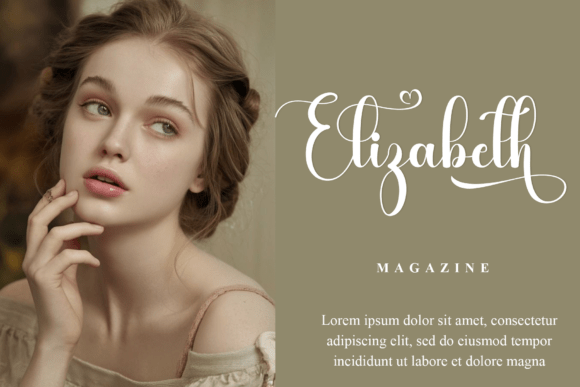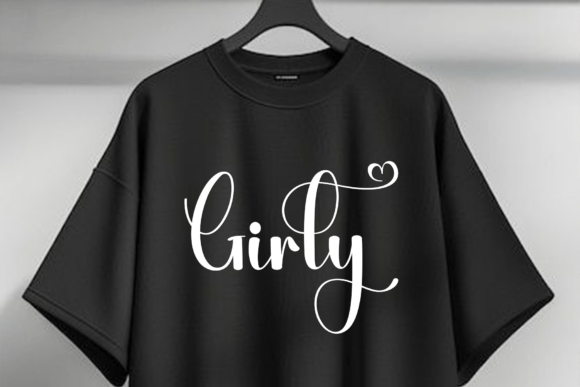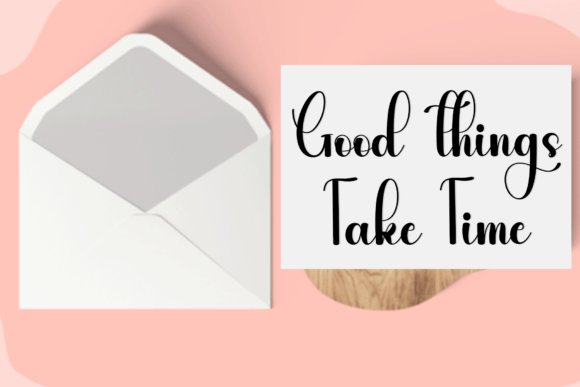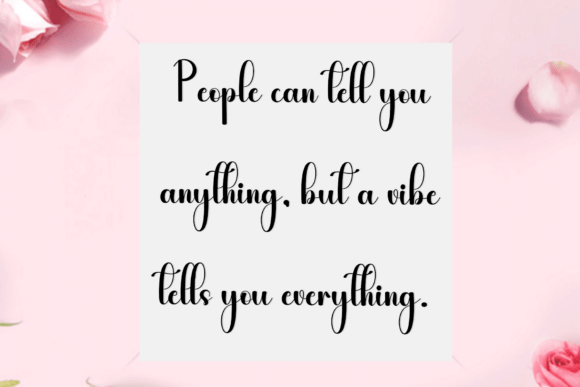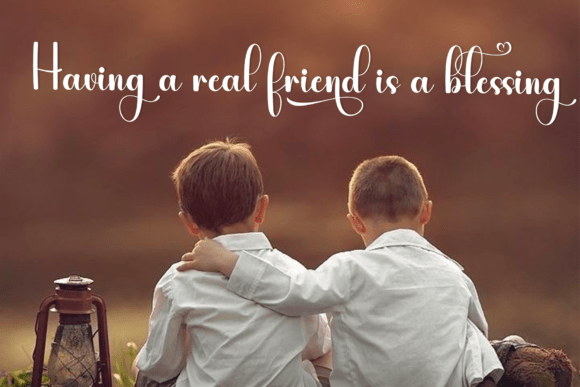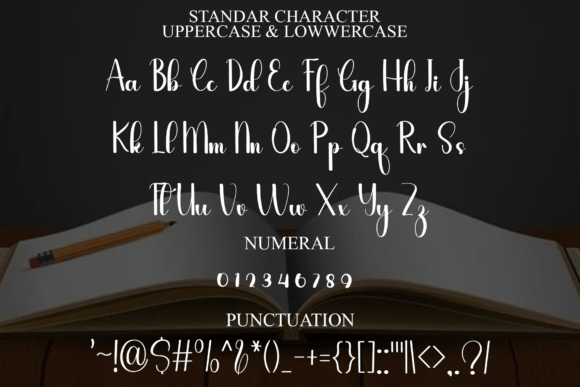
Discover the Magic of Enchanting Font: A Perfect Blend of Creativity and Friendliness
Are you tired of using traditional fonts that lack personality and warmth? Look no further than the Enchanting Font, a casual and creative typeface that exudes friendliness and approachability. With its round, playful strokes, this font is perfect for designers and crafters looking to add a touch of magic to their personal projects, invitations, and social media graphics.
The Charm of Enchanting Font
The Enchanting Font boasts a charming, hand-drawn aesthetic that adds a fun and unique touch to any design. Its relaxed and approachable feel makes it ideal for creating eye-catching visuals that connect with your audience on a personal level. Whether you’re designing a wedding invitation, a social media post, or a personal blog, this font is sure to make your content stand out.
Key Features of Enchanting Font
- Hand-Drawn Aesthetic: The font’s hand-drawn design gives it a unique and personal touch, perfect for adding a dash of creativity to your designs.
- Playful Strokes: The round, playful strokes of the Enchanting Font create a relaxed and approachable feel, making it perfect for personal projects and social media graphics.
The Enchanting Font is a versatile typeface that can be used in a variety of design projects, including:
- Personal Projects: Add a touch of personality to your personal projects, such as blogs, journals, and scrapbooking.
- Invitations: Create eye-catching invitations for weddings, parties, and other special events.
- Social Media Graphics: Make your social media posts stand out with the Enchanting Font’s playful and creative design.
- Crafting Projects: Use the Enchanting Font to add a personal touch to your crafting projects, such as handmade cards and gift tags.
Why Choose Enchanting Font?
With so many fonts available, why choose the Enchanting Font? Here are just a few reasons:
- Unique Design: The Enchanting Font’s hand-drawn design sets it apart from traditional fonts, giving your designs a unique and personal touch.
- Easy to Read: The font’s playful strokes and rounded edges make it easy to read, even at small sizes.
- Versatile: The Enchanting Font can be used in a variety of design projects, from personal projects to commercial designs.